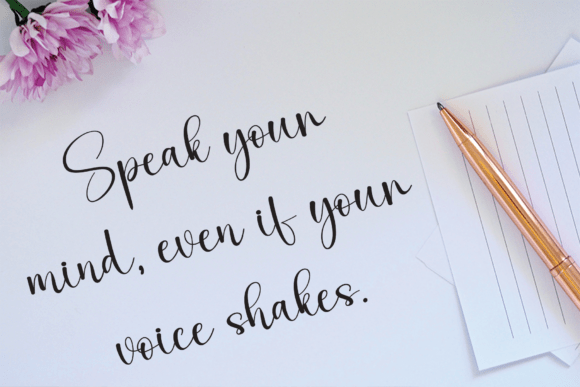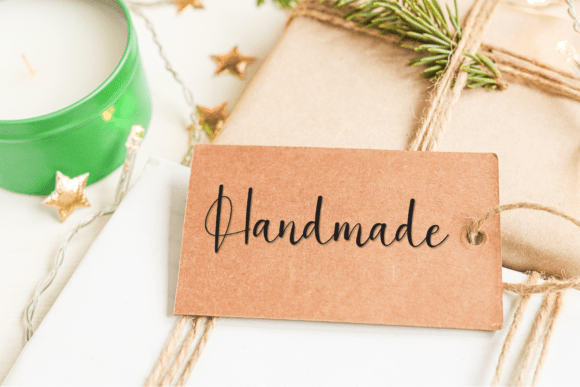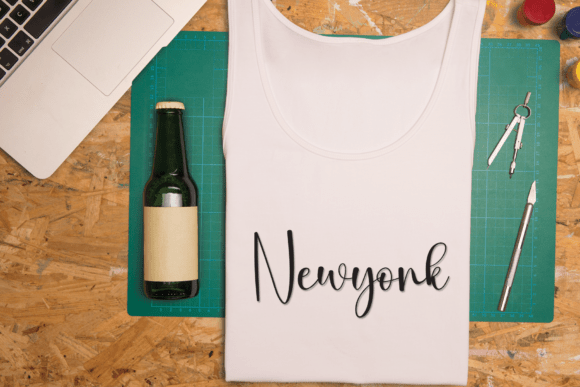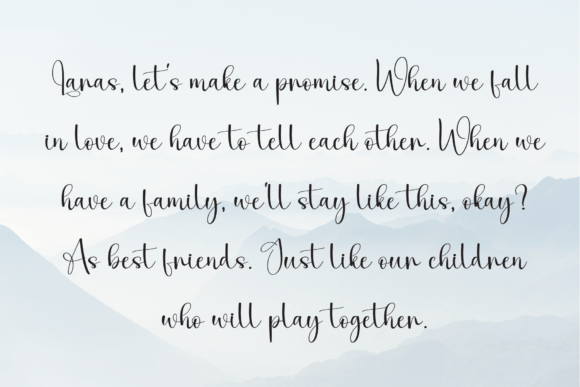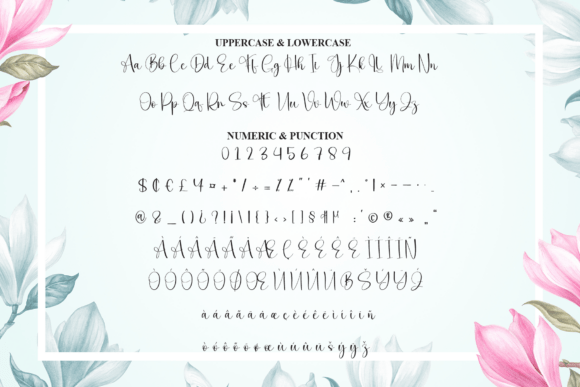
Introducing Delightful Font: Elevate Your Designs with Elegance and Sophistication
In the world of typography, a font can make or break a design. For designers and crafters seeking to add a touch of luxury and modern charm to their projects, Delightful Font is an exceptional choice. This stylish script font is meticulously crafted to bring a sense of elegance and refinement to various design applications, from logos and invitations to packaging and social media graphics.
The Beauty of Delightful Font
Delightful Font is a masterful blend of traditional calligraphy and contemporary design. Its graceful strokes and fluid curves evoke the beauty of hand-drawn calligraphy, while its carefully crafted letterforms provide a modern twist. The result is a font that exudes sophistication and poise, perfect for designers looking to create stunning visual content.
Key Features of Delightful Font
- Elegant and Refined: Delightful Font features a sophisticated design that adds a touch of luxury to any project.
- Versatile: Suitable for a wide range of design applications, including logos, invitations, packaging, and social media graphics.
- Modern Twist: Combines traditional calligraphy with modern design elements for a unique and contemporary look.
- Polished Details: Carefully crafted letterforms and precise lines ensure a high level of readability and visual appeal.
- Natural Flow: The font’s fluid curves and strokes create a natural, hand-drawn feel that engages the viewer.
Applications of Delightful Font
Delightful Font’s versatility makes it an excellent choice for various design projects. Here are some ideal applications:
- Logos: Create a lasting impression with a sophisticated logo that showcases your brand’s personality.
- Invitations: Add a touch of elegance to wedding invitations, birthday parties, and other special events.
- Packaging: Elevate your product packaging with a refined and modern design that stands out on store shelves.
- Social Media Graphics: Enhance your social media presence with eye-catching graphics that reflect your brand’s style and sophistication.
Why Choose Delightful Font?
With so many fonts available, why choose Delightful Font? Here are a few compelling reasons:
- Unique Design: Delightful Font offers a distinctive and stylish design that sets it apart from other fonts.
- High Readability: The font’s carefully crafted letterforms ensure excellent readability, even at smaller sizes.
- Customization: Delightful Font can be easily customized to fit your brand’s style and personality.
Delightful Font is an exceptional choice for designers and crafters seeking to add a touch of elegance and sophistication to their projects. With its unique blend of traditional calligraphy and modern design, this stylish script font is sure to elevate your designs and leave a lasting impression. Whether you’re creating logos, invitations, packaging, or social media graphics, Delightful Font is the perfect choice for those who value refinement, versatility, and visual appeal.